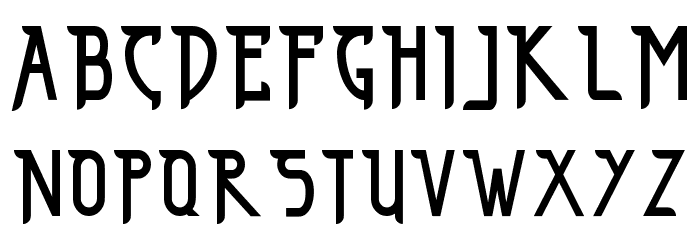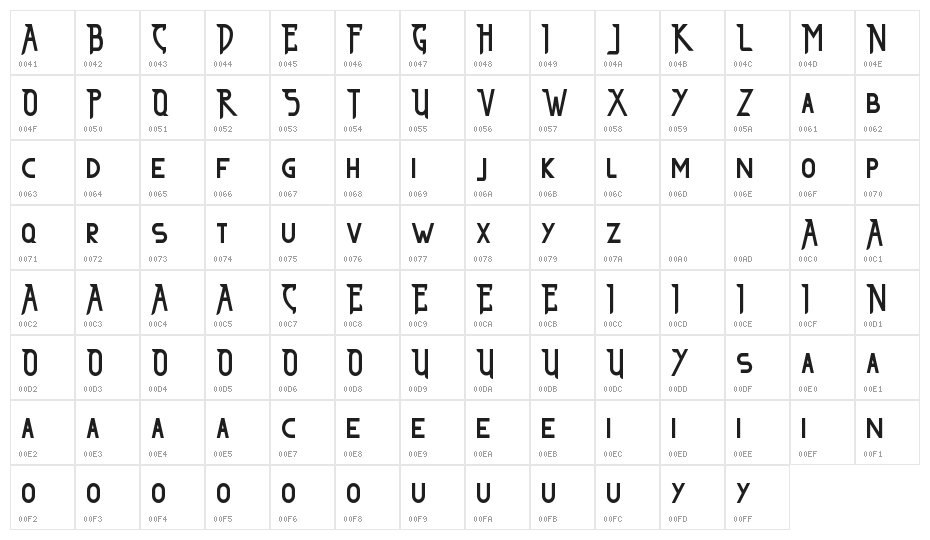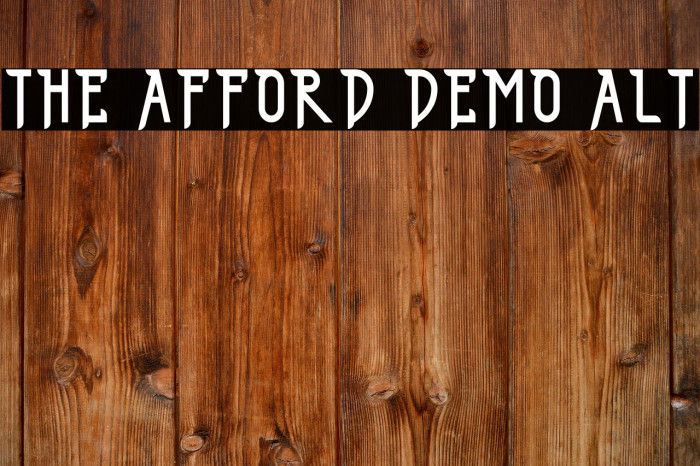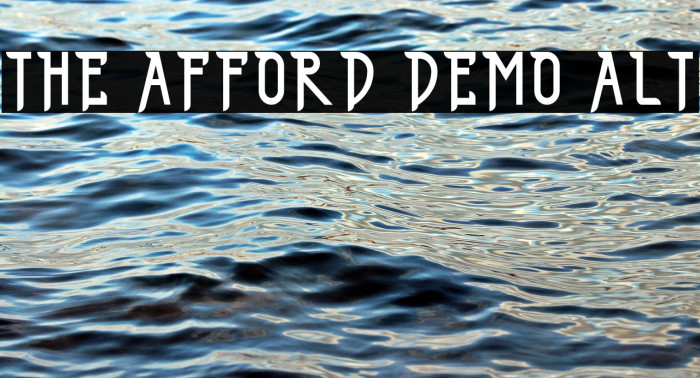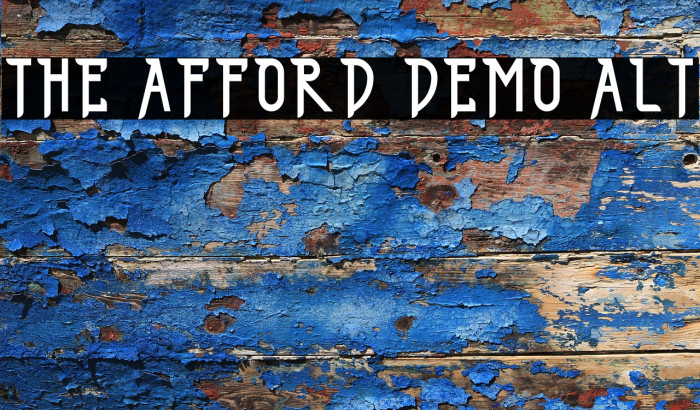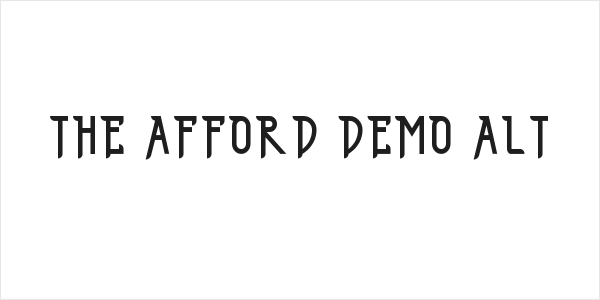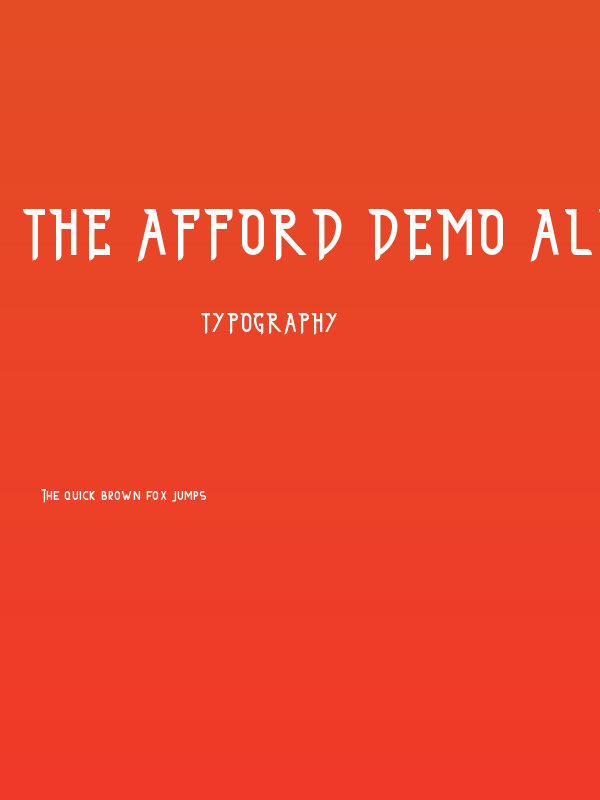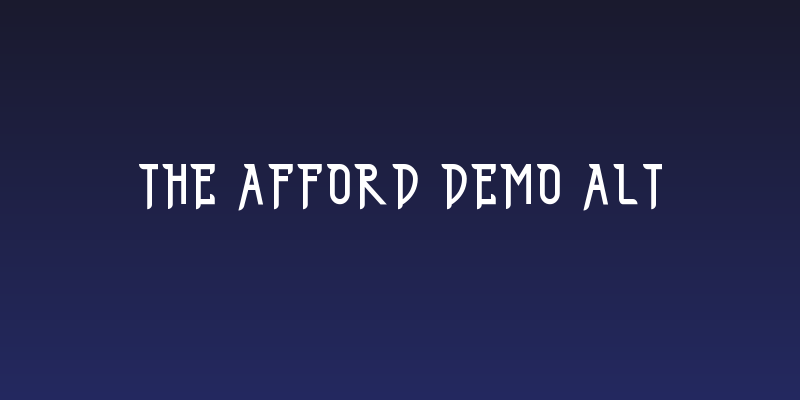
THE AFFORD DEMO ALT Font
THE AFFORD DEMO ALT Description
This font features a bold and striking design with a modern twist. The uppercase letters are characterized by sharp angles and a geometric structure, giving them a futuristic appearance. The lowercase letters maintain a consistent style with slightly softer curves, providing a balanced contrast to the uppercase. The numbers and special characters follow the same design principles, ensuring uniformity across all glyphs. The font's unique style makes it stand out, ideal for projects that require a bold statement. Its clean lines and distinct shapes make it suitable for various design applications.
| Proposed Projects | Ideal for branding, posters, headlines, and digital media where a strong visual impact is desired. |